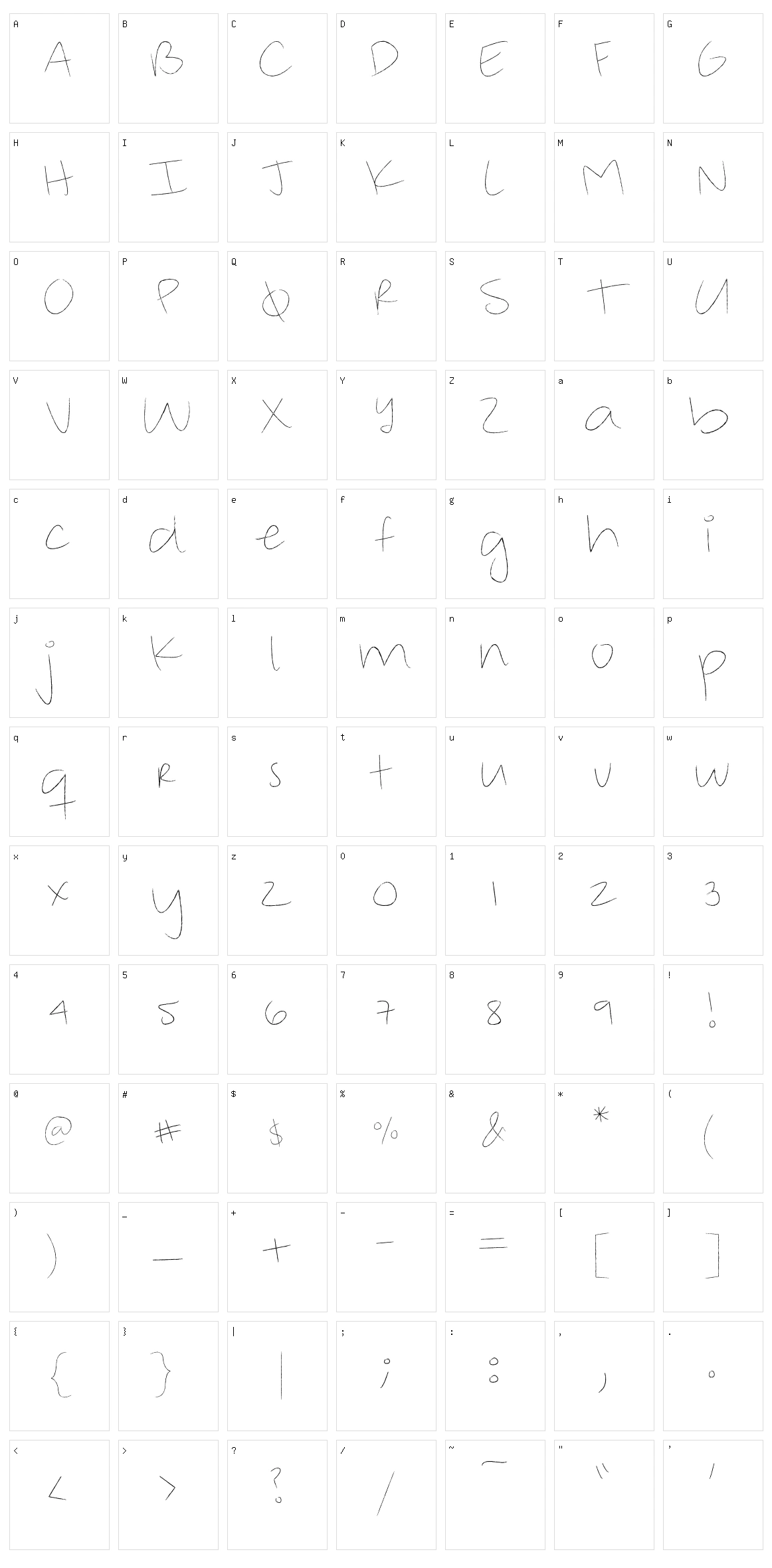
The free font Chilly is carefully designed by Cecilia Rodr?guez, showcasing a thoughtful balance of creativity and usability and falls under the Script font style. When you download the ZIP file, it contains only 496.08 KB of font files, making it lightweight and quick to download. Please review the license details below to understand permitted usage and distribution rights. If license information is not available, we recommend using this font for personal projects only or contacting the author directly for commercial usage permissions.